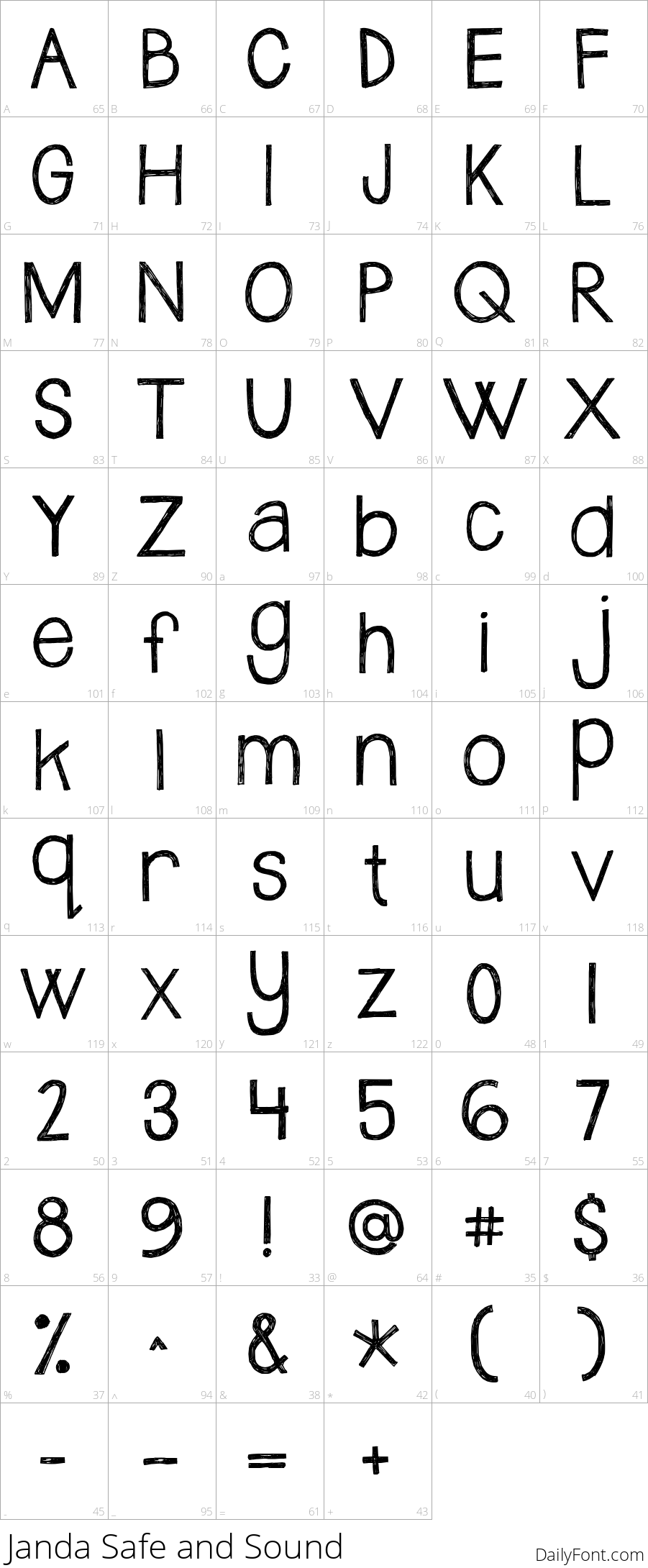
Janda Safe And Sound by Kimberly Geswein
Hand-drawn display font with playful, cursive feel; perfect for creative projects requiring unique, whimsical typography.